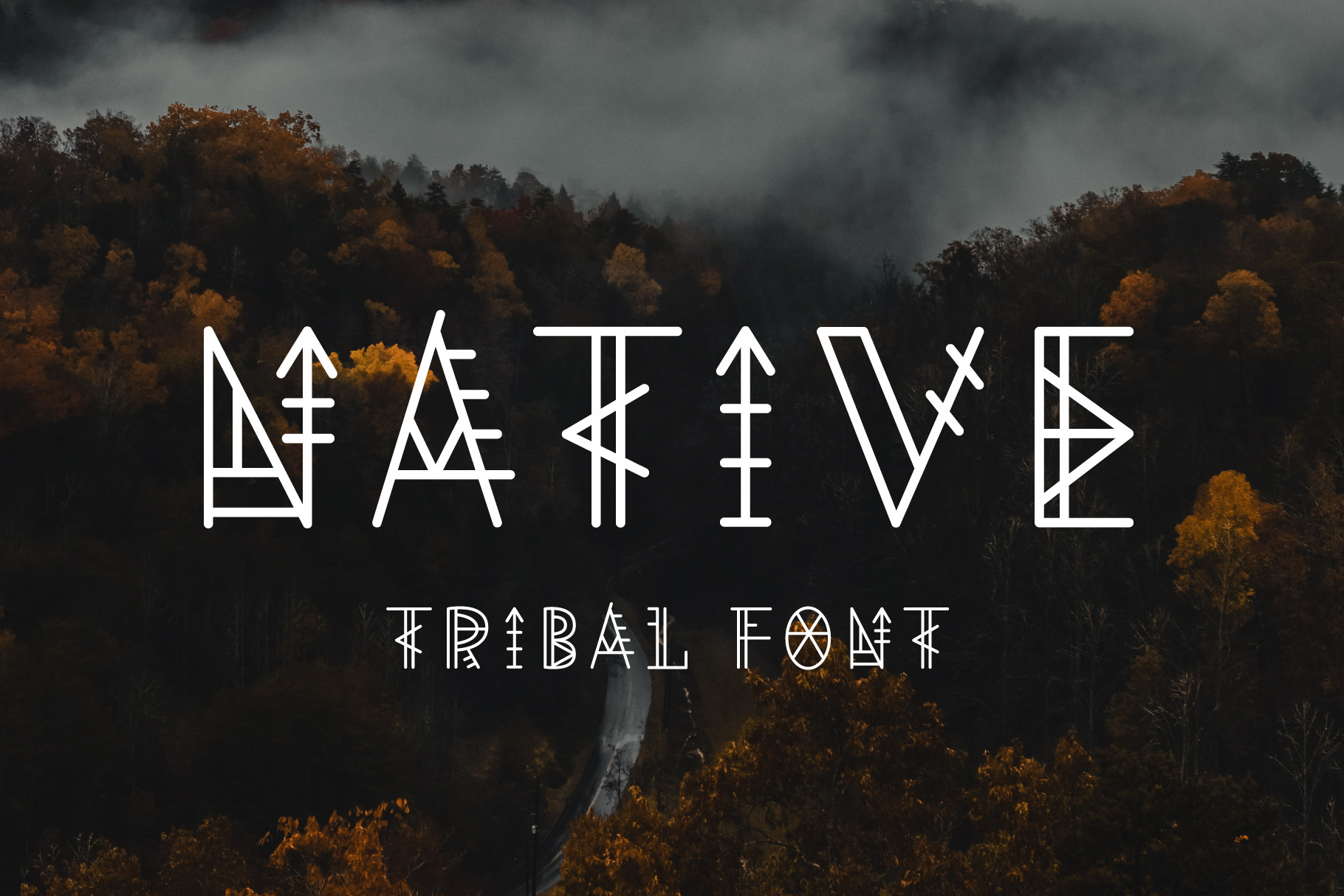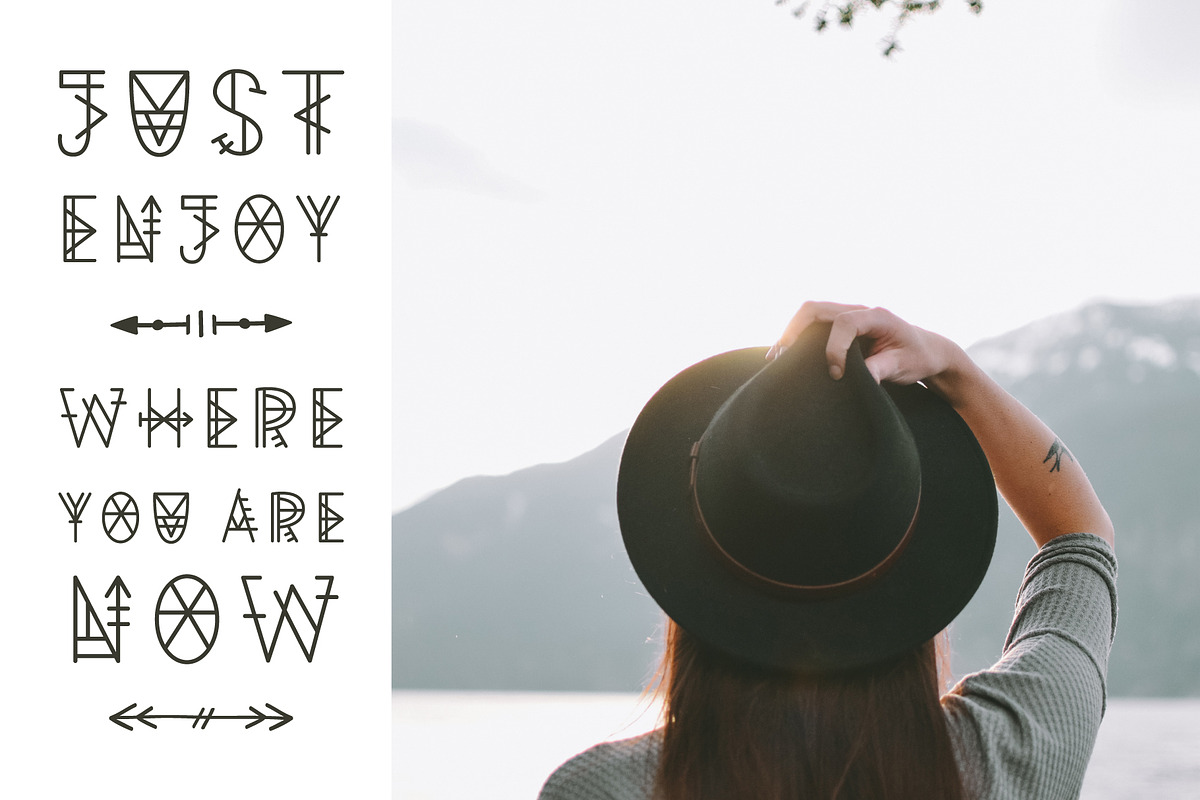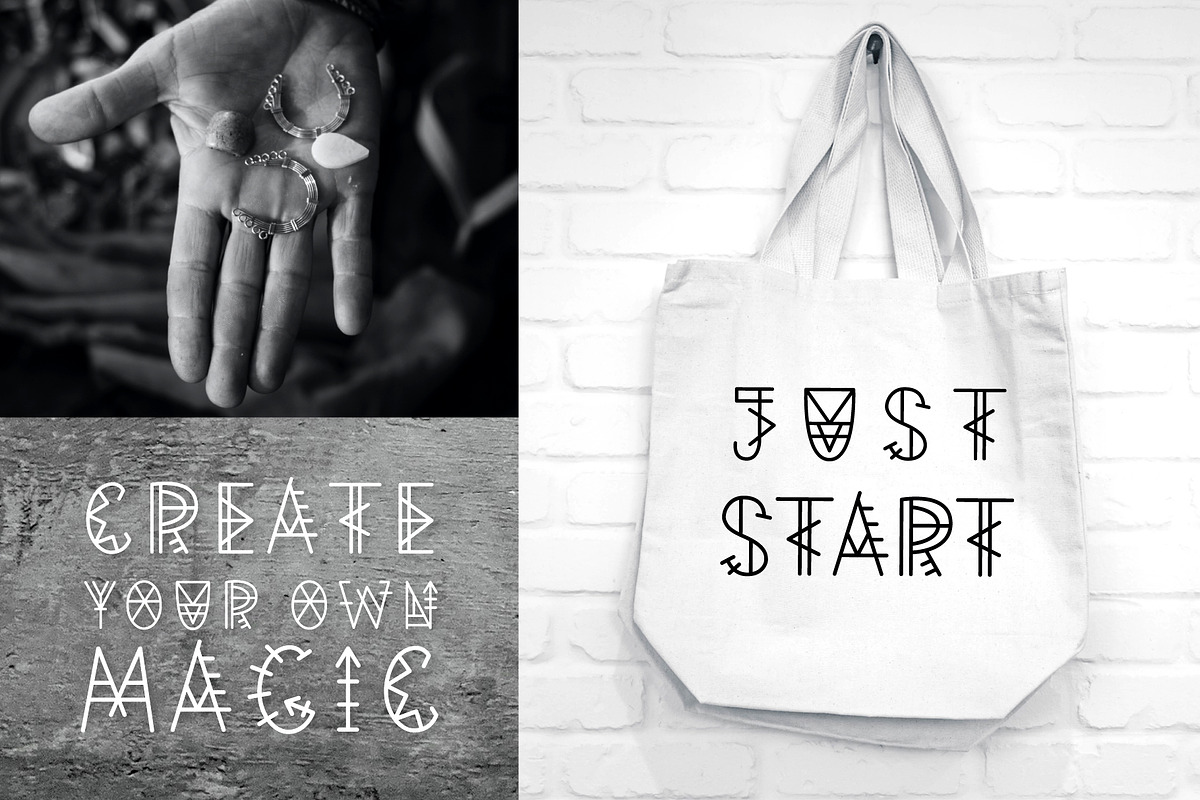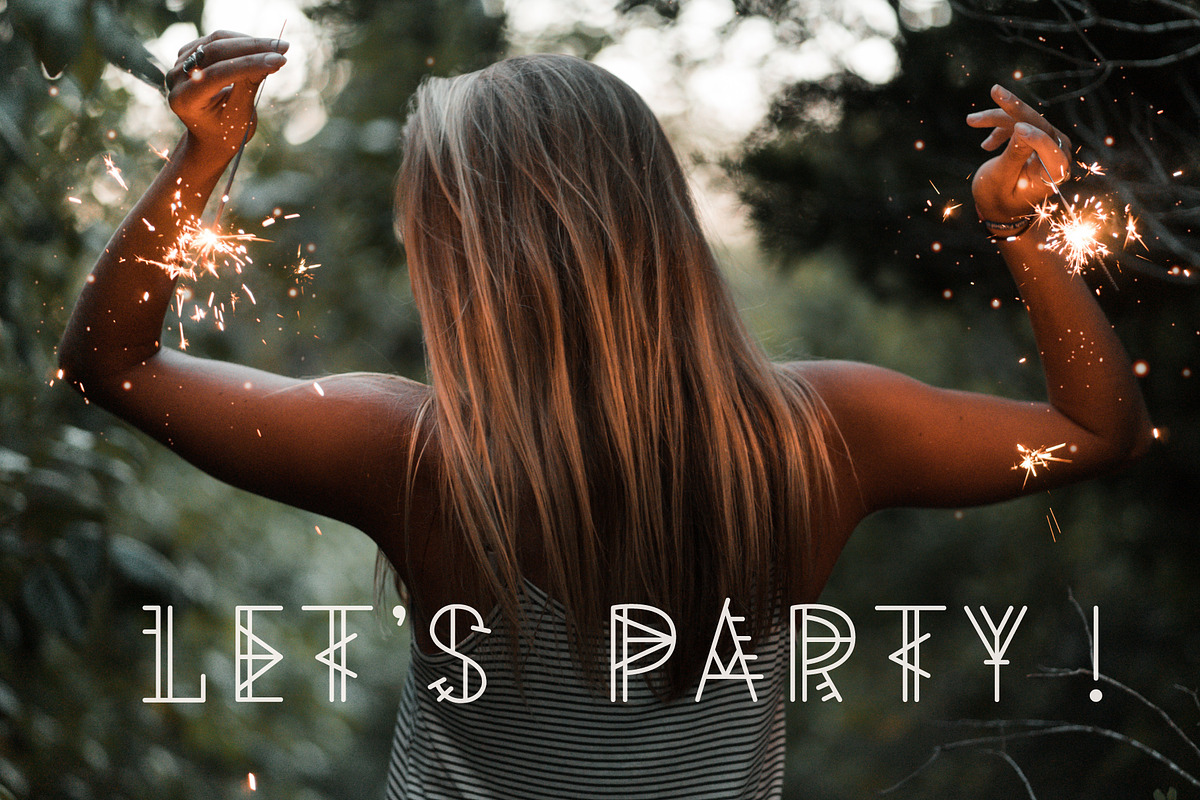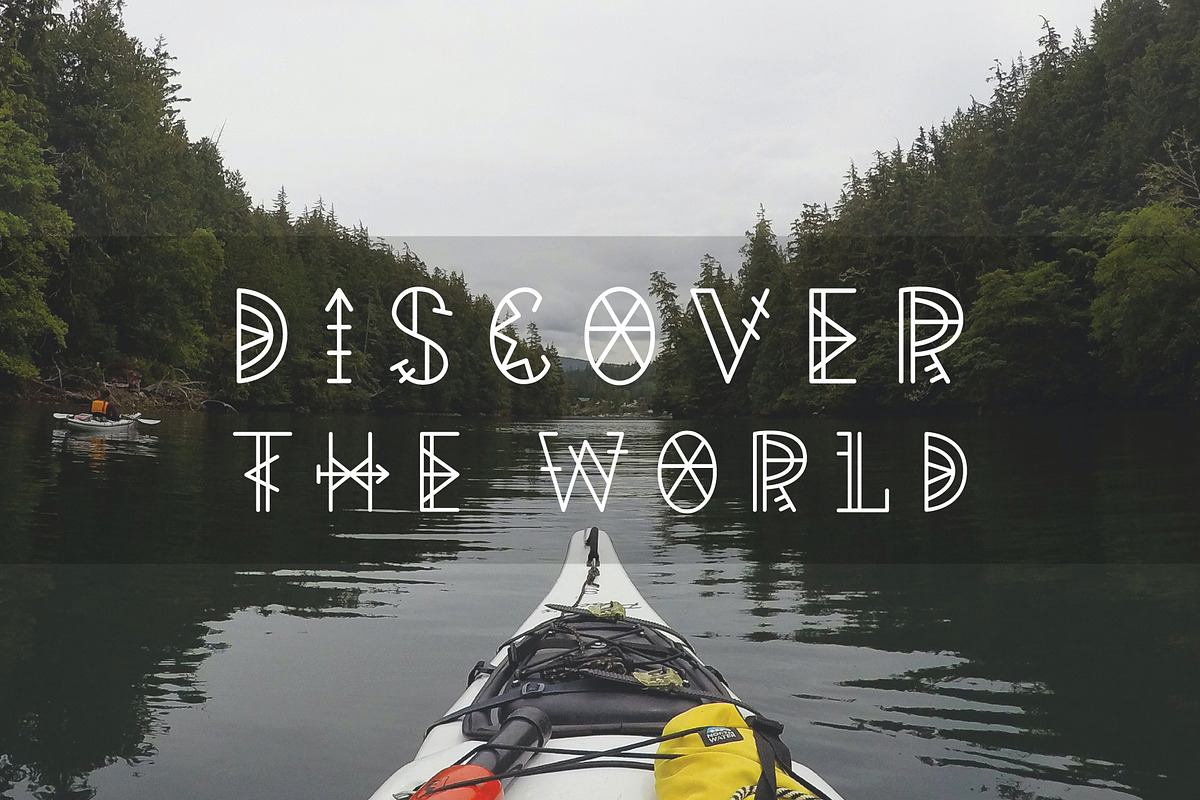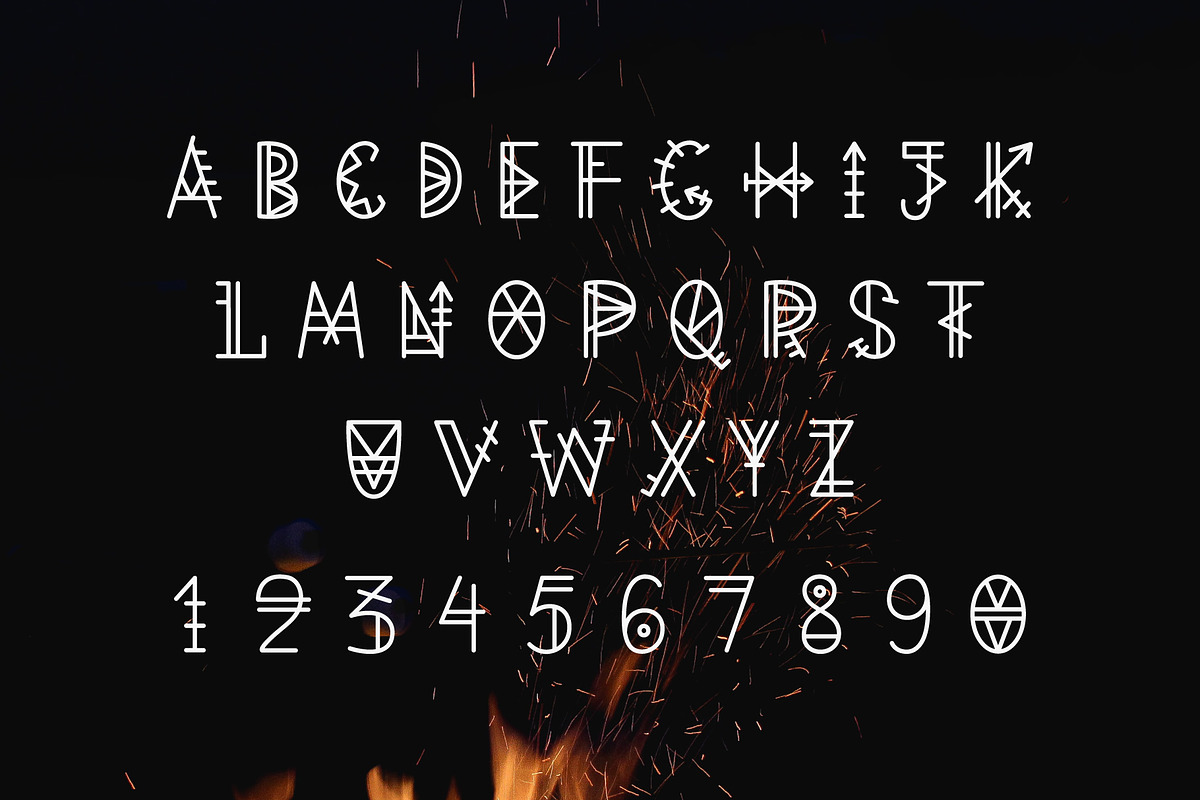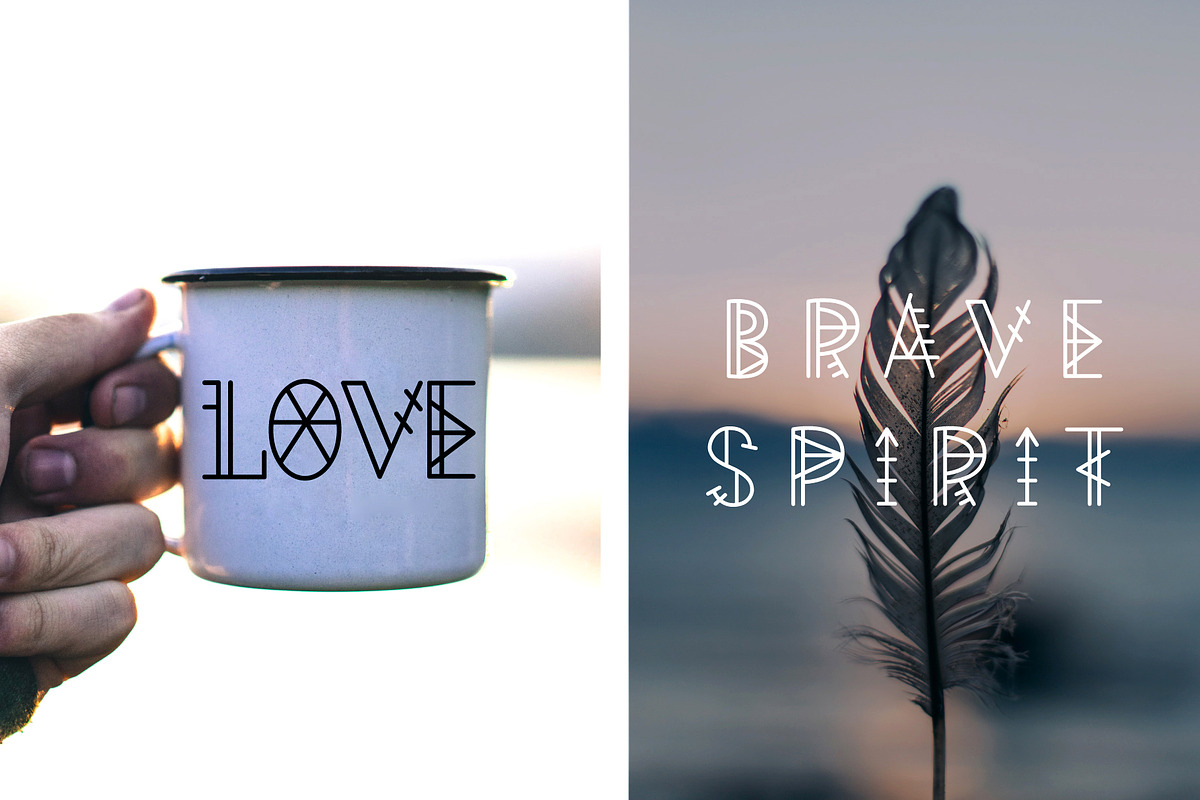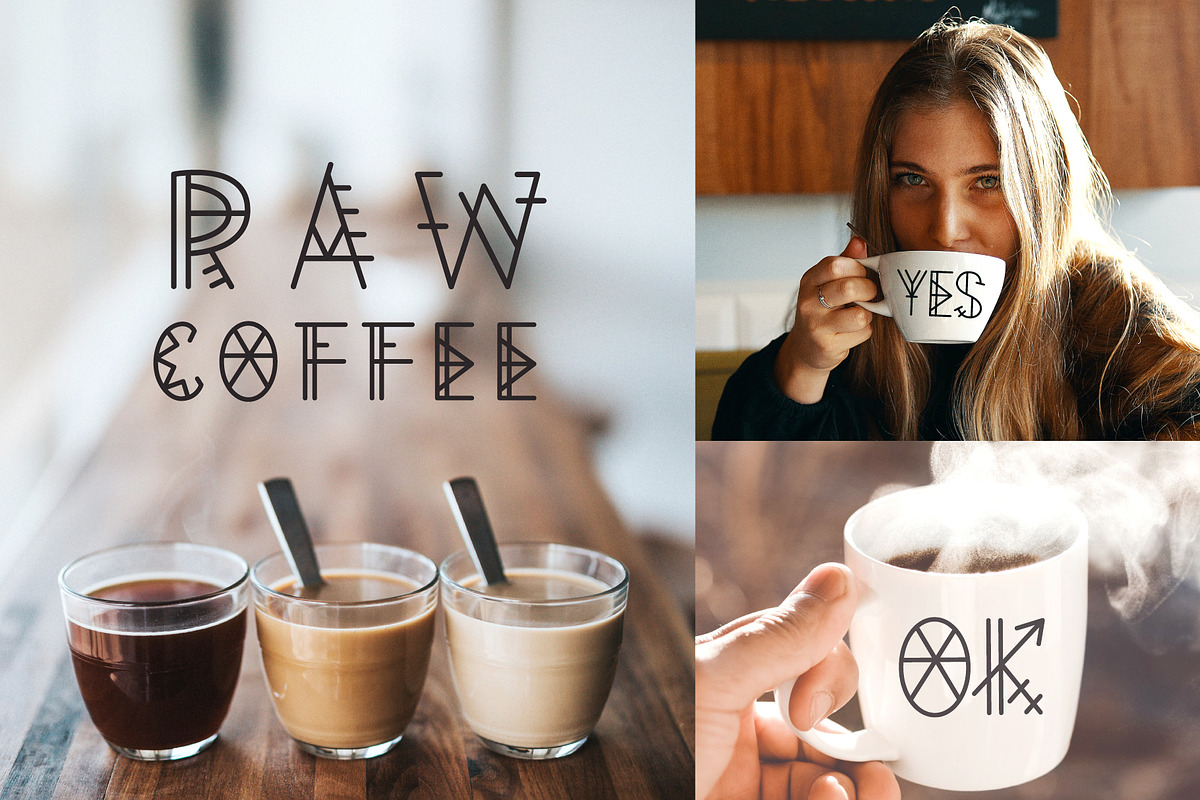
Native Geometric Font
Hey everyone! I'm glad to introduce you new decorative Native Geometric font! It's perfect for branding, logos, headlines and hipster T-shirt prints.
This font includes CAPS only, numbers and punctuations.